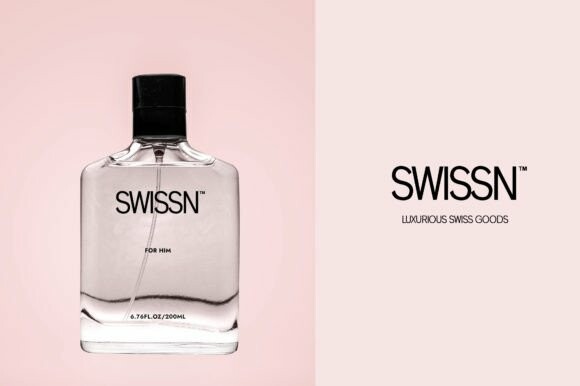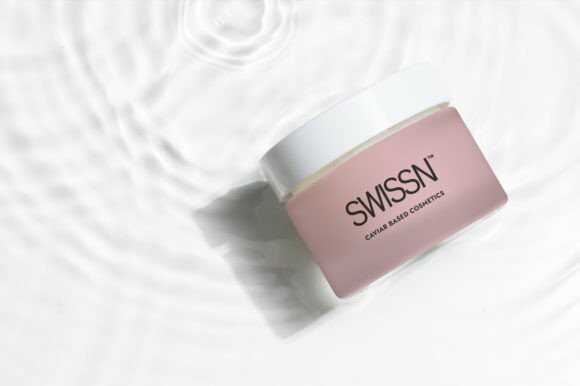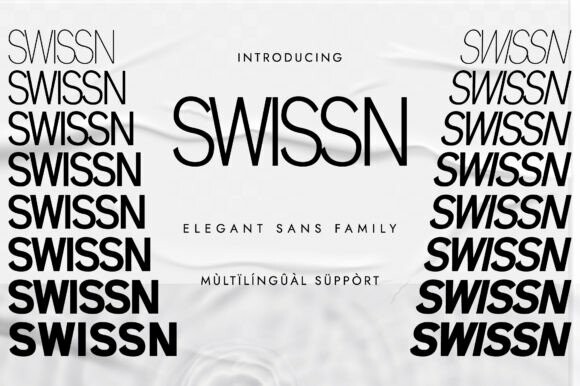
Swissn Font Family
Swissn Font Family is a modern, classy sans serif typeface. Extremely versatile, this typeface is perfect for logos, weddings, invitations, quotes, advertisements, print, magazines, and more!